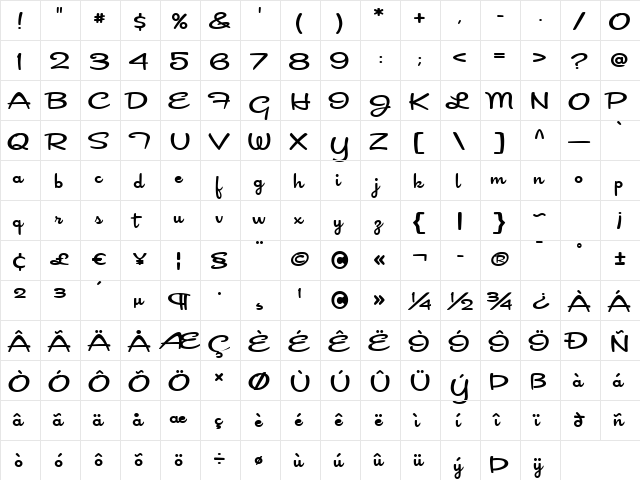
CocktailShaker Regular
Design Context for CocktailShaker Typeface
CocktailShaker is a composed and adaptable typeface that performs quietly and consistently across a wide range of design contexts.